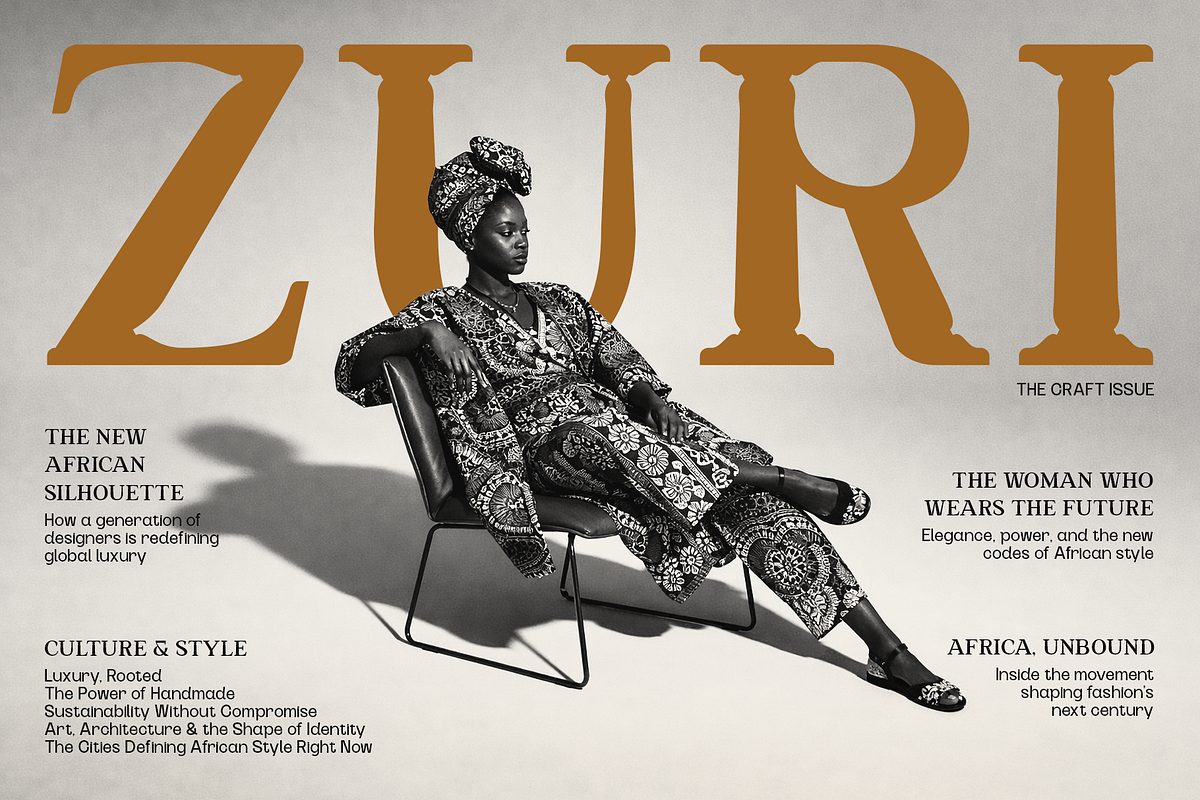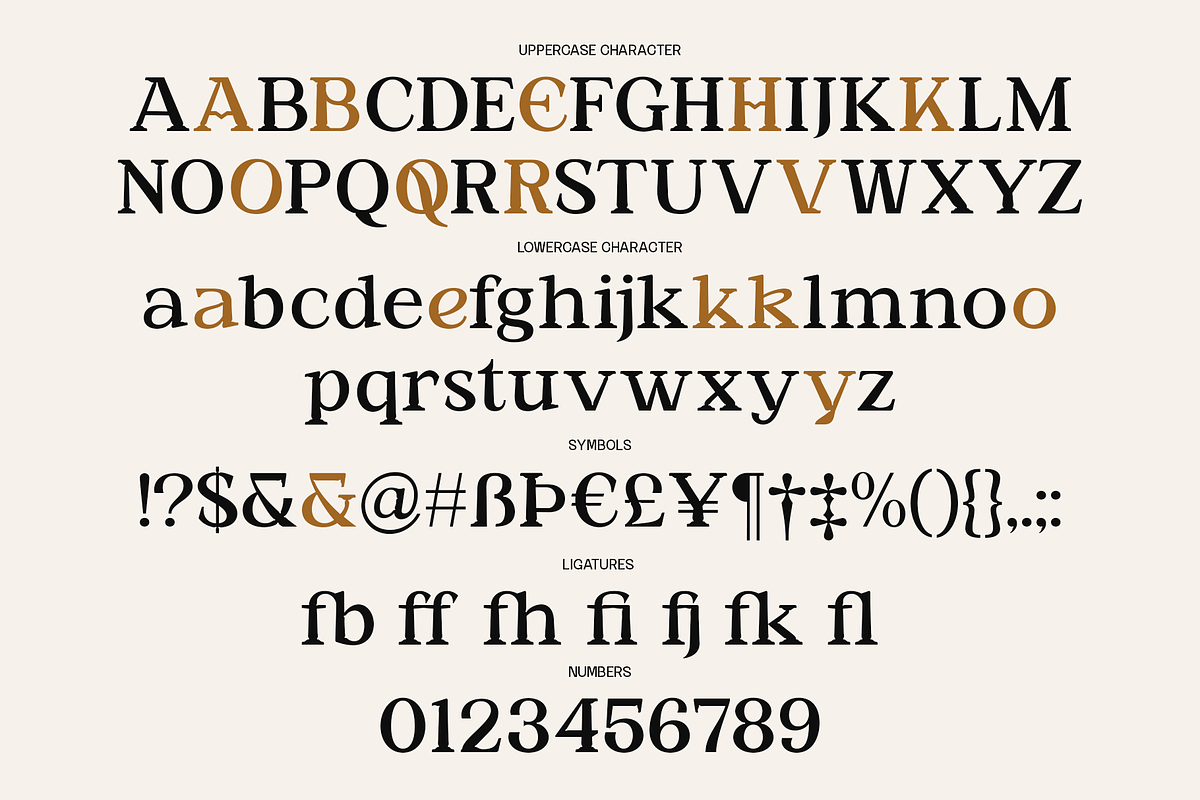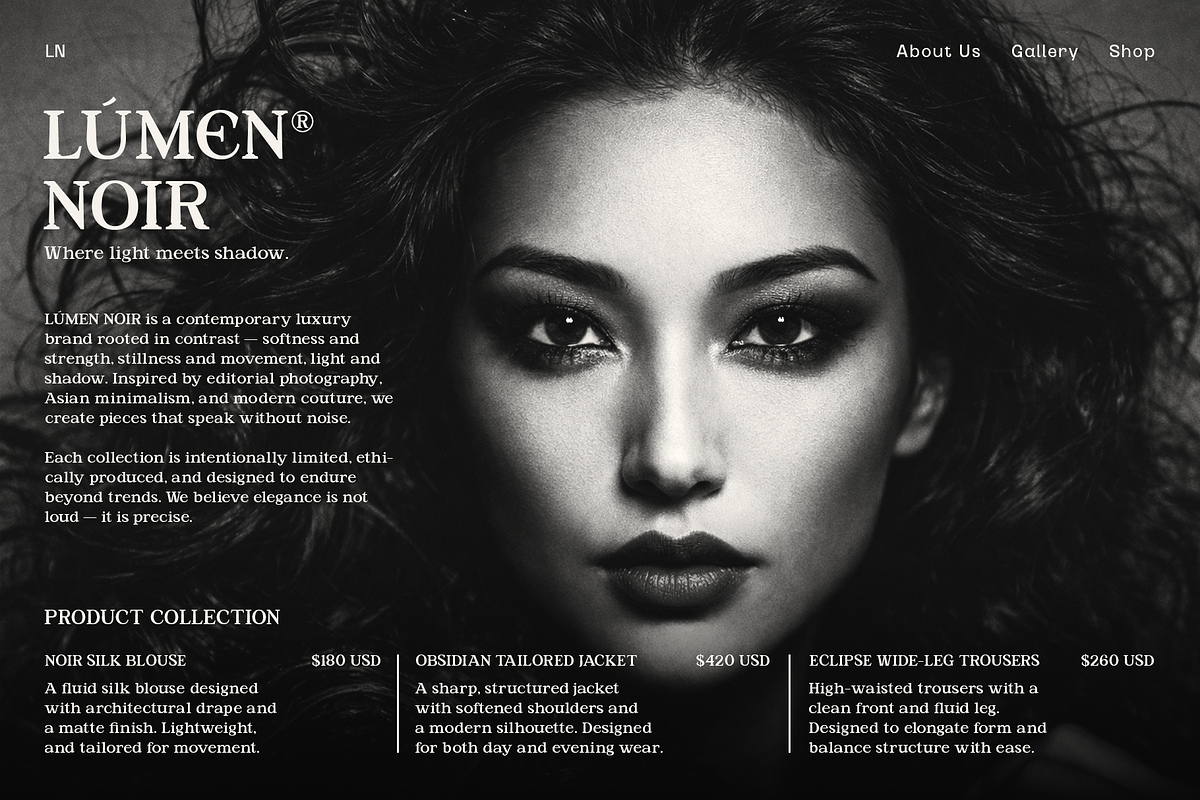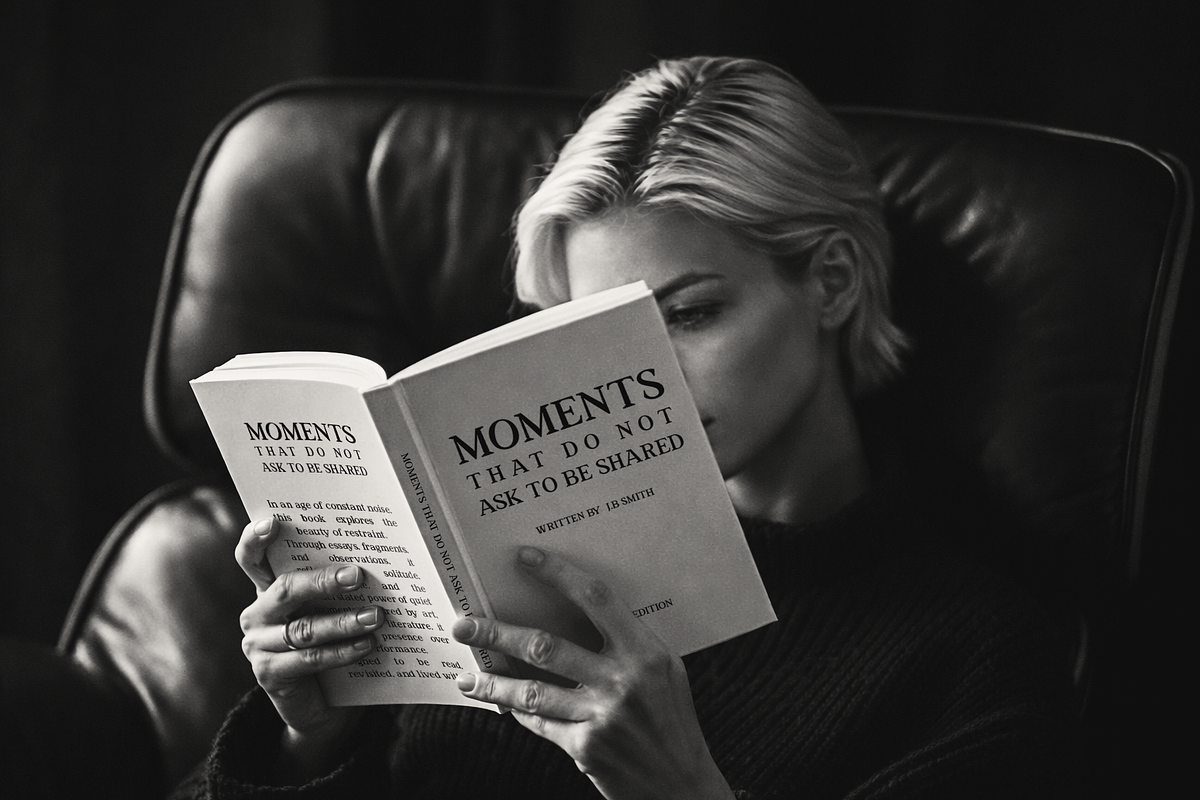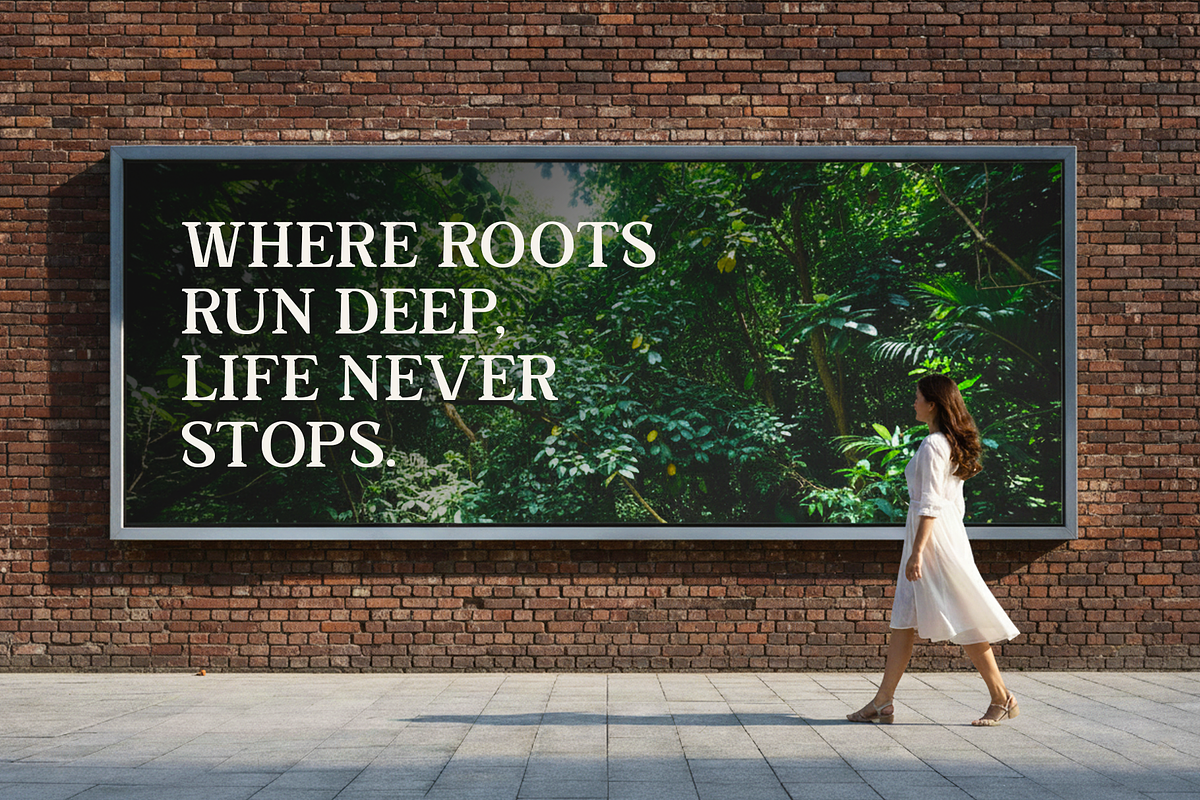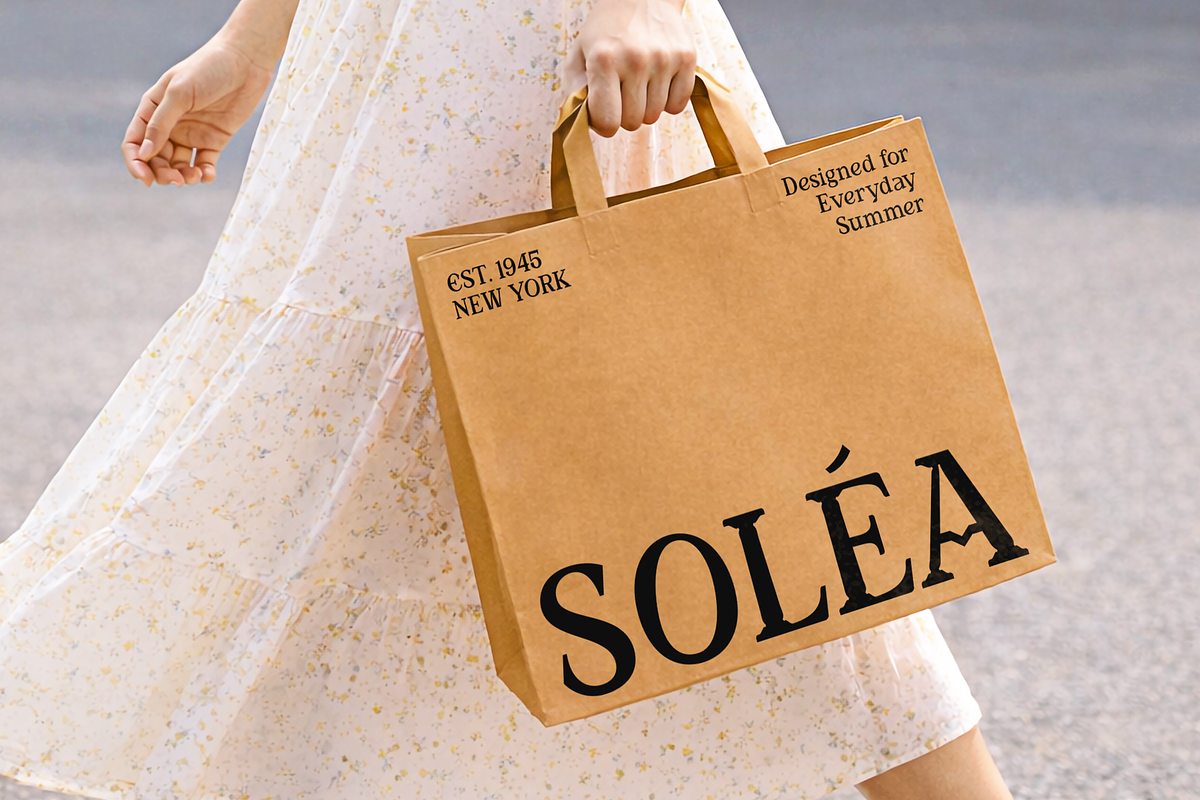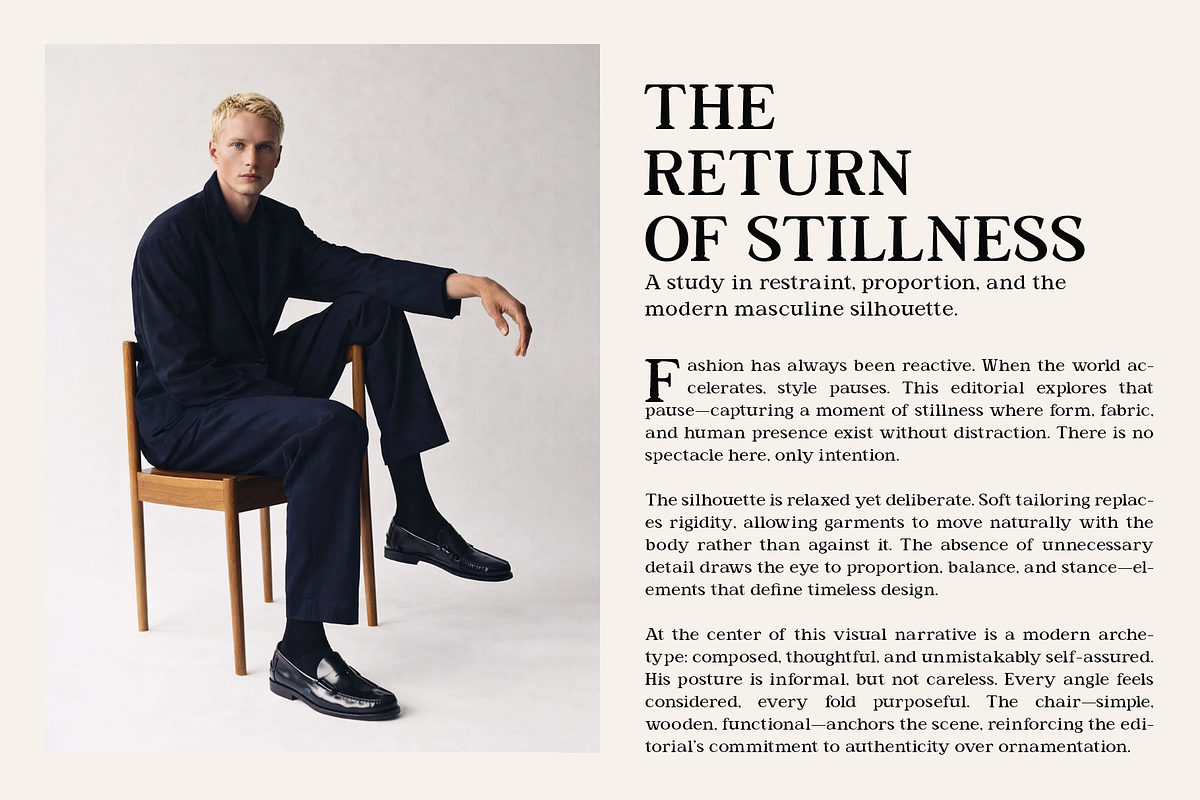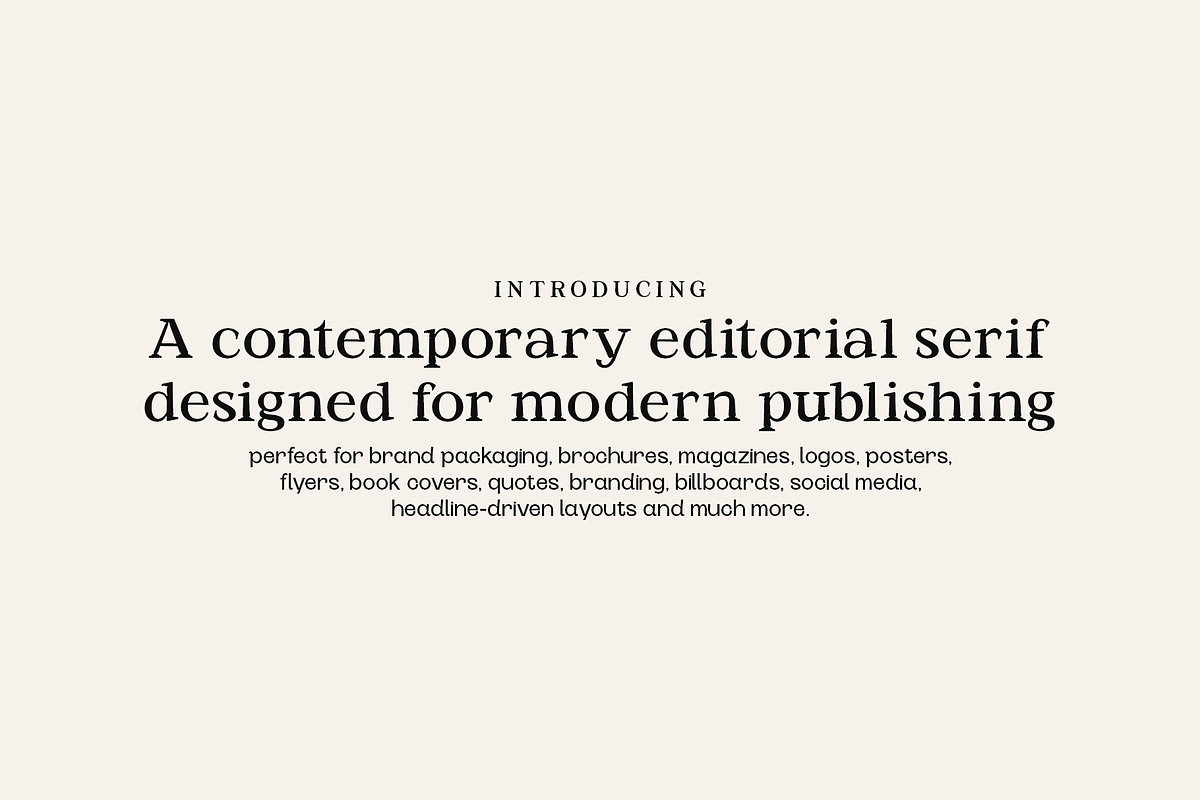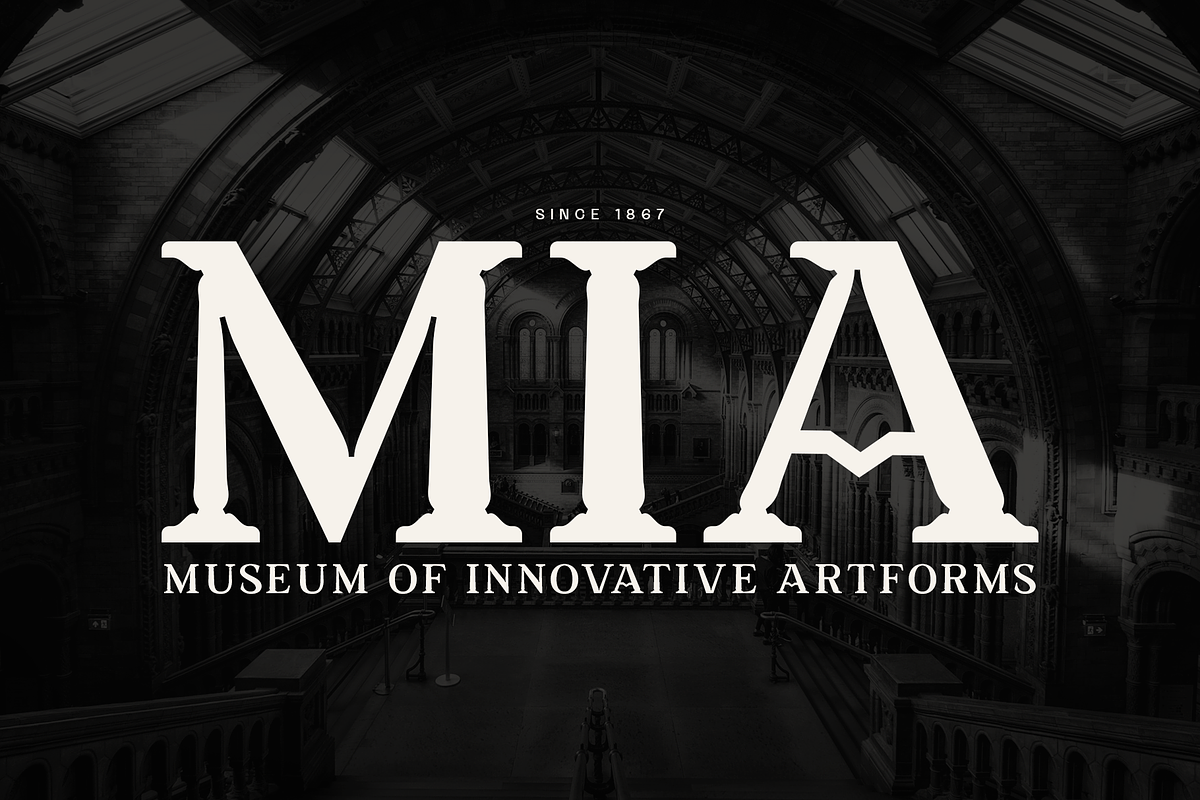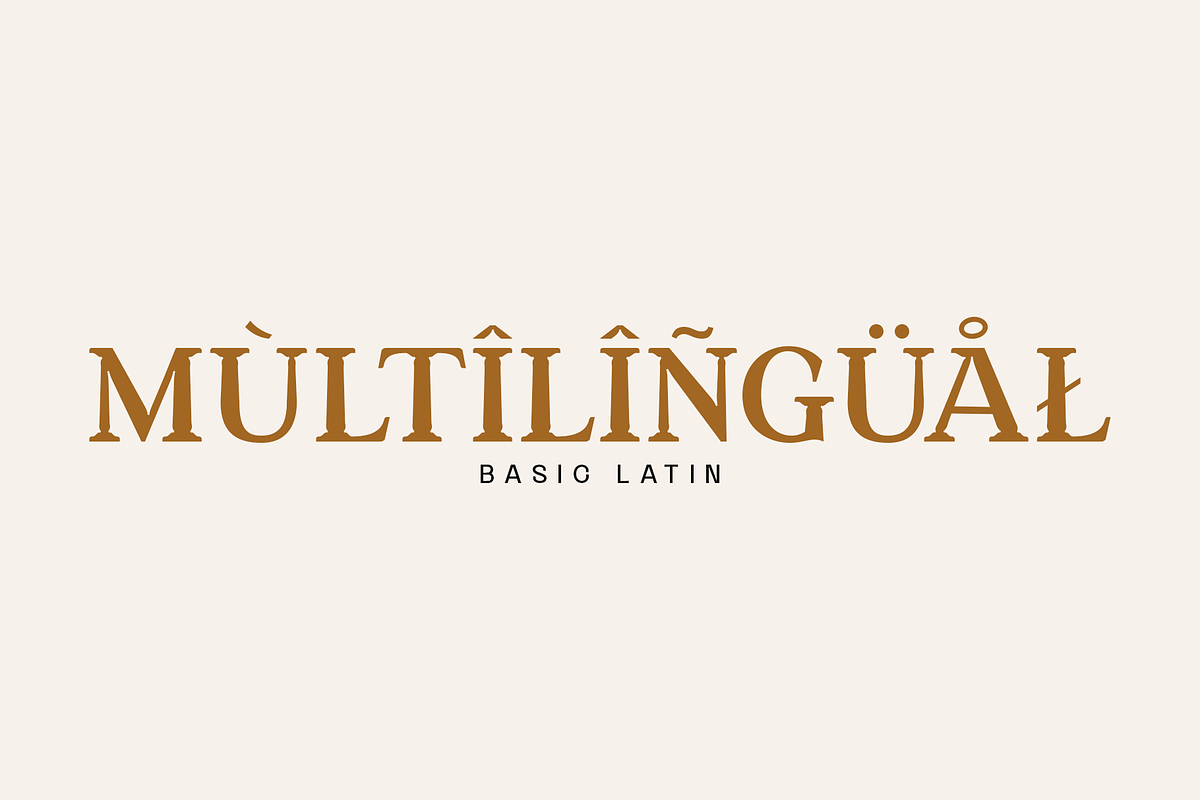
Jenbior - A Modern Editorial Serif
Jenbior is a modern serif typeface inspired by editorial publishing, fashion culture, and contemporary print design. Designed for use in magazines, book covers, cultural branding, and headline-driven layouts, Jenbior blends authority with refined motion.
Rooted in classical Roman proportions and reinterpreted through sculptural pillar-like stems, the typeface features expressive contrast, distinctive ink traps, and carefully shaped serifs that give it a confident yet elegant presence. Subtle organic irregularities introduce a humanist warmth, allowing the font to feel crafted rather than mechanical.
Jenbior is ideal for editorial headlines, journals, posters, branding, and cultural projects where typography must communicate character, clarity, and sophistication. It performs equally well in print and digital environments, making it a versatile choice for modern designers and creative studios.
KEY FEATURES
- Contemporary editorial serif design
- Roman-inspired pillar stems with distinctive ink traps
- Expressive contrast with refined, controlled motion
- Carefully designed alternates for creative flexibility
- Optimized for display typography and large-scale use
- Works across print and digital applications
BEST FOR
- Editorial design & publishing
- Fashion and cultural branding
- Book covers and journals
- Posters, campaigns, and visual identities
- Logos and headline typography
Jenbior is designed for designers who want typography that feels editorial, timeless, and distinctly modern.